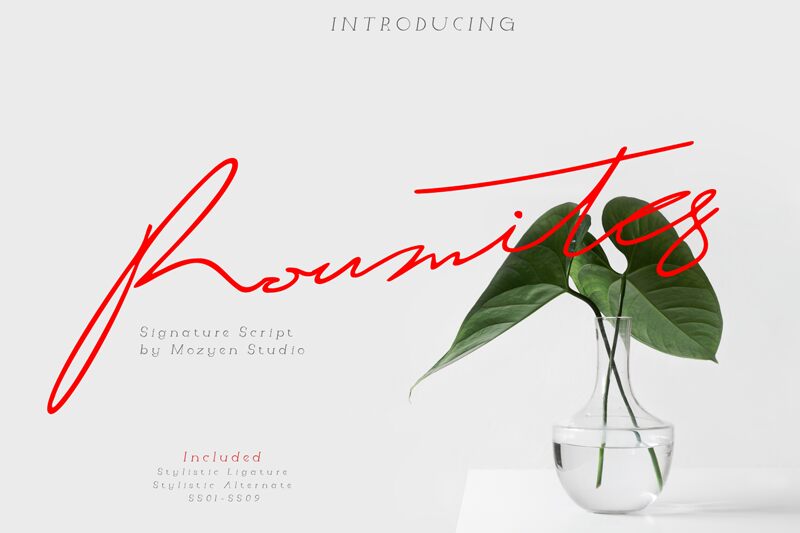
Roumites font by Mozyen Studio is an light handwritten font with a signature style. It boasts elegant flowing lines and sophisticated, modern aesthetics. Roumites showcases an effortless vibe while maintaining refined appearances which makes it easy to fall in love with. This free typeface will add a lovely personal finishing touch to your individual projects.
Handmade art illustrations, business cards, invitations or RSVP cards for weddings and bridal showers can benefit from every detail with Roumites. Make the best out of its distinguishing style in logo designs or use as part of custom quotes developed for prints, digital marketing campaign ads and social media visual content amongst others.
Designed by Muhamad Ali H., Designer from Mozyen Studio